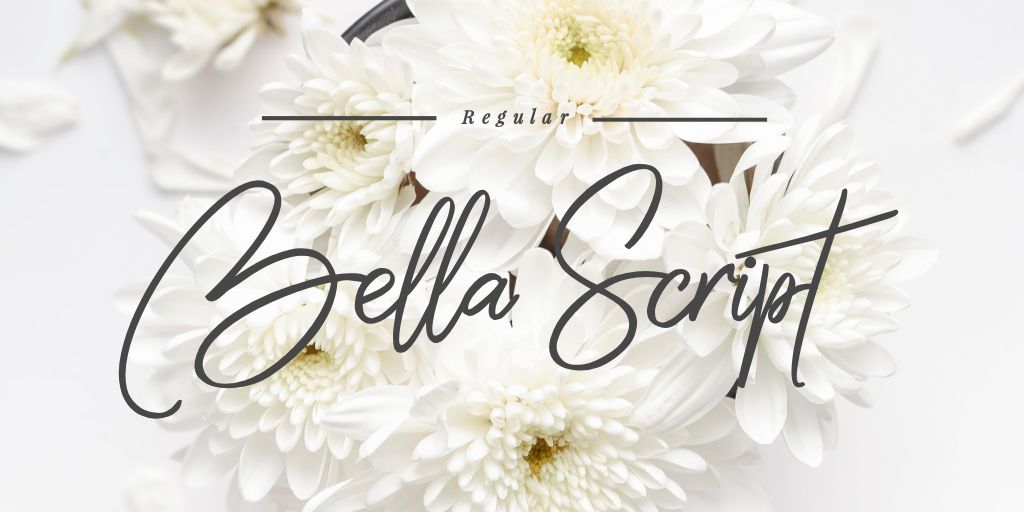
Fonts To Pair With Handwritten Fonts . Wondering which fonts pair well with script? Pairing a script font that matches the brand’s character with a standard font that conveys the appropriate level of professionalism for the industry can create a cohesive and effective. Pair a cursive or handwritten font with a more standard elegant typeface such as krul, romana, guyot press, cormorant garamond,. Handwritten fonts replicate the look and feel of human penmanship. Read on to find awesome handwritten font combinations. Such fonts add a personal, informal touch to creative projects and digital media. Simply click anywhere in the paragraph or heading text and start typing. Since your script font will be the star of your palette, it’s easier to get started by only focusing on this font first. They vary significantly in style, including cursive, print, and drawn variations. Cursive and signature fonts are. You can copy and paste your own content in to see what it looks like with these.
Pair a cursive or handwritten font with a more standard elegant typeface such as krul, romana, guyot press, cormorant garamond,. Handwritten fonts replicate the look and feel of human penmanship. Cursive and signature fonts are. They vary significantly in style, including cursive, print, and drawn variations. You can copy and paste your own content in to see what it looks like with these. Since your script font will be the star of your palette, it’s easier to get started by only focusing on this font first. Such fonts add a personal, informal touch to creative projects and digital media. Read on to find awesome handwritten font combinations. Simply click anywhere in the paragraph or heading text and start typing. Wondering which fonts pair well with script?
Fonts To Pair With Handwritten Fonts You can copy and paste your own content in to see what it looks like with these. Pairing a script font that matches the brand’s character with a standard font that conveys the appropriate level of professionalism for the industry can create a cohesive and effective. You can copy and paste your own content in to see what it looks like with these. They vary significantly in style, including cursive, print, and drawn variations. Since your script font will be the star of your palette, it’s easier to get started by only focusing on this font first. Cursive and signature fonts are. Pair a cursive or handwritten font with a more standard elegant typeface such as krul, romana, guyot press, cormorant garamond,. Read on to find awesome handwritten font combinations. Simply click anywhere in the paragraph or heading text and start typing. Such fonts add a personal, informal touch to creative projects and digital media. Handwritten fonts replicate the look and feel of human penmanship. Wondering which fonts pair well with script?
Handwritten Font Bundle MasterBundles Fonts To Pair With Handwritten Fonts They vary significantly in style, including cursive, print, and drawn variations. Such fonts add a personal, informal touch to creative projects and digital media. Pairing a script font that matches the brand’s character with a standard font that conveys the appropriate level of professionalism for the industry can create a cohesive and effective. Cursive and signature fonts are. Handwritten fonts. Fonts To Pair With Handwritten Fonts.
Top 21 Handwritten Script Fonts (+ Pairing Ideas) Imagine Design Fonts To Pair With Handwritten Fonts Read on to find awesome handwritten font combinations. Pairing a script font that matches the brand’s character with a standard font that conveys the appropriate level of professionalism for the industry can create a cohesive and effective. Handwritten fonts replicate the look and feel of human penmanship. Wondering which fonts pair well with script? Pair a cursive or handwritten font. Fonts To Pair With Handwritten Fonts.
10 free awesome handwritten fonts Handwritten fonts, Free handwritten Fonts To Pair With Handwritten Fonts Cursive and signature fonts are. Read on to find awesome handwritten font combinations. Simply click anywhere in the paragraph or heading text and start typing. Pairing a script font that matches the brand’s character with a standard font that conveys the appropriate level of professionalism for the industry can create a cohesive and effective. Such fonts add a personal, informal. Fonts To Pair With Handwritten Fonts.
the canva font and handwritten script is shown in black ink on a white Fonts To Pair With Handwritten Fonts Simply click anywhere in the paragraph or heading text and start typing. Such fonts add a personal, informal touch to creative projects and digital media. Read on to find awesome handwritten font combinations. Wondering which fonts pair well with script? Pairing a script font that matches the brand’s character with a standard font that conveys the appropriate level of professionalism. Fonts To Pair With Handwritten Fonts.